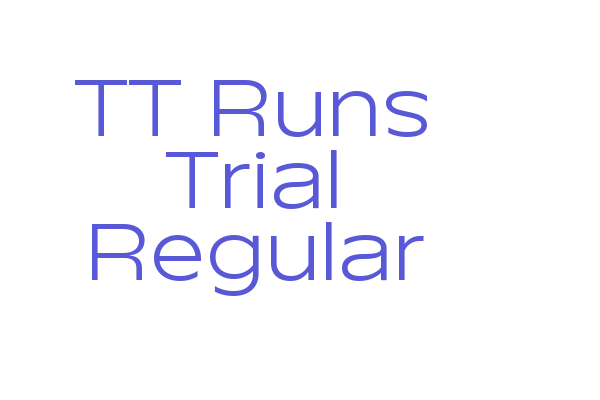
TT Runs Trial Regular is a basic sans-serif font designed by a team of talented designers. With a clean and modern style, this font is perfect for a wide range of design projects. Its versatility makes it ideal for both digital and print applications, adding a touch of sophistication to any design.
Font Name: TT Runs Trial Regular
Designer: Designed by Vika Usmanova, Antonina Zhulkova, Marina Khodak, Philipp Nurullin, Ivan Gladkikh, Eugene Tantsurin. Technical designers Ivan Gladkikh, Yuri Nako, Victor Rubenko.
Font Family: TT Runs Trial